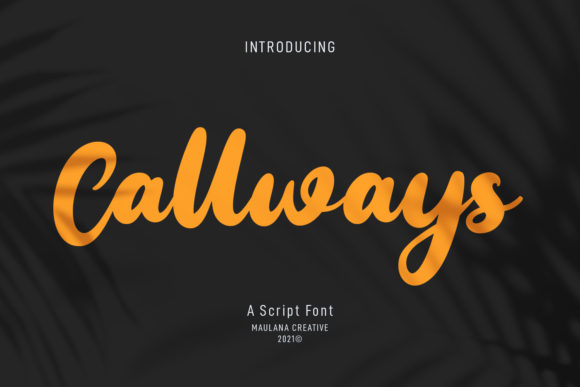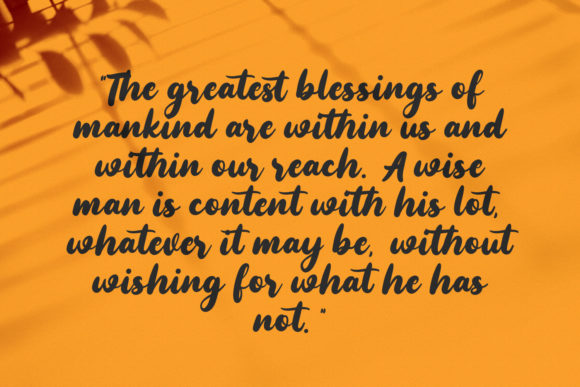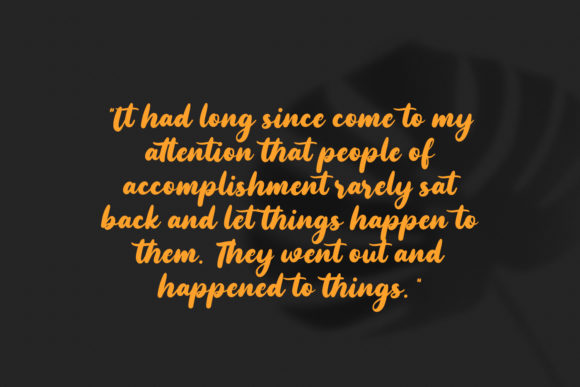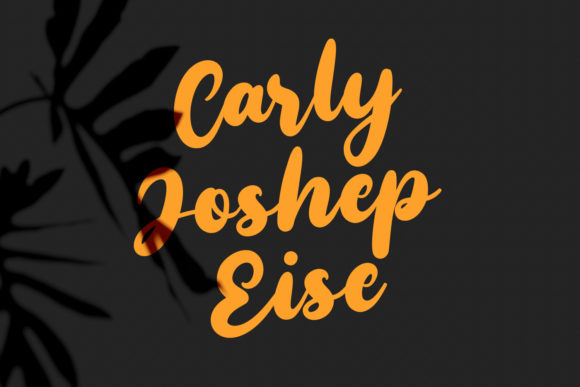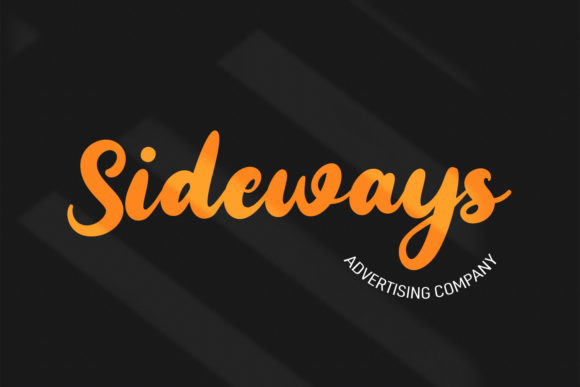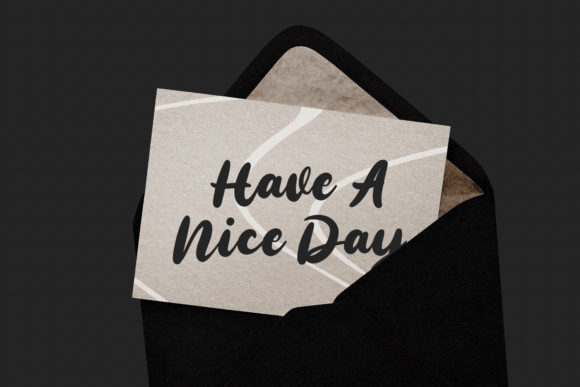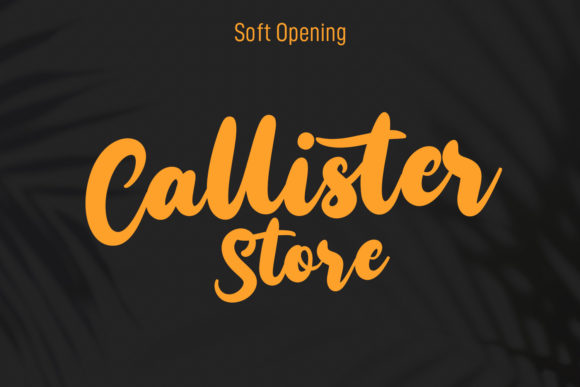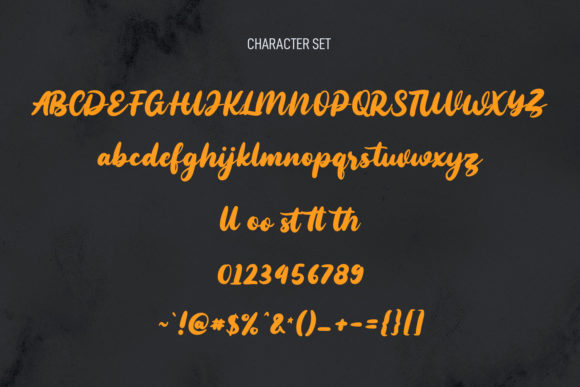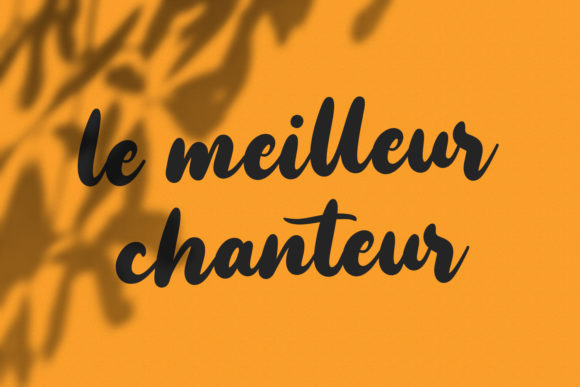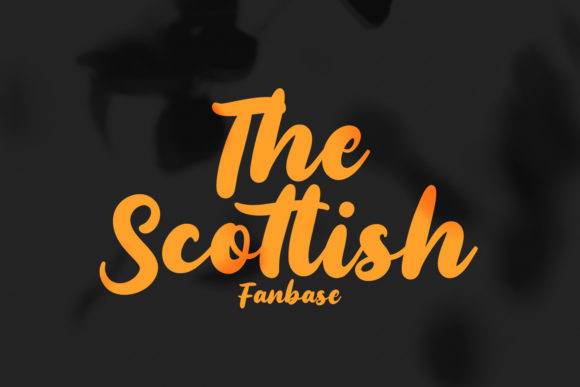
Callways Script Font
Callways is an attractive handwritten font featuring bold characters and a stylish vibe! Add it to wedding projects, birthday invitations, thank you notes, and other beautiful creations!